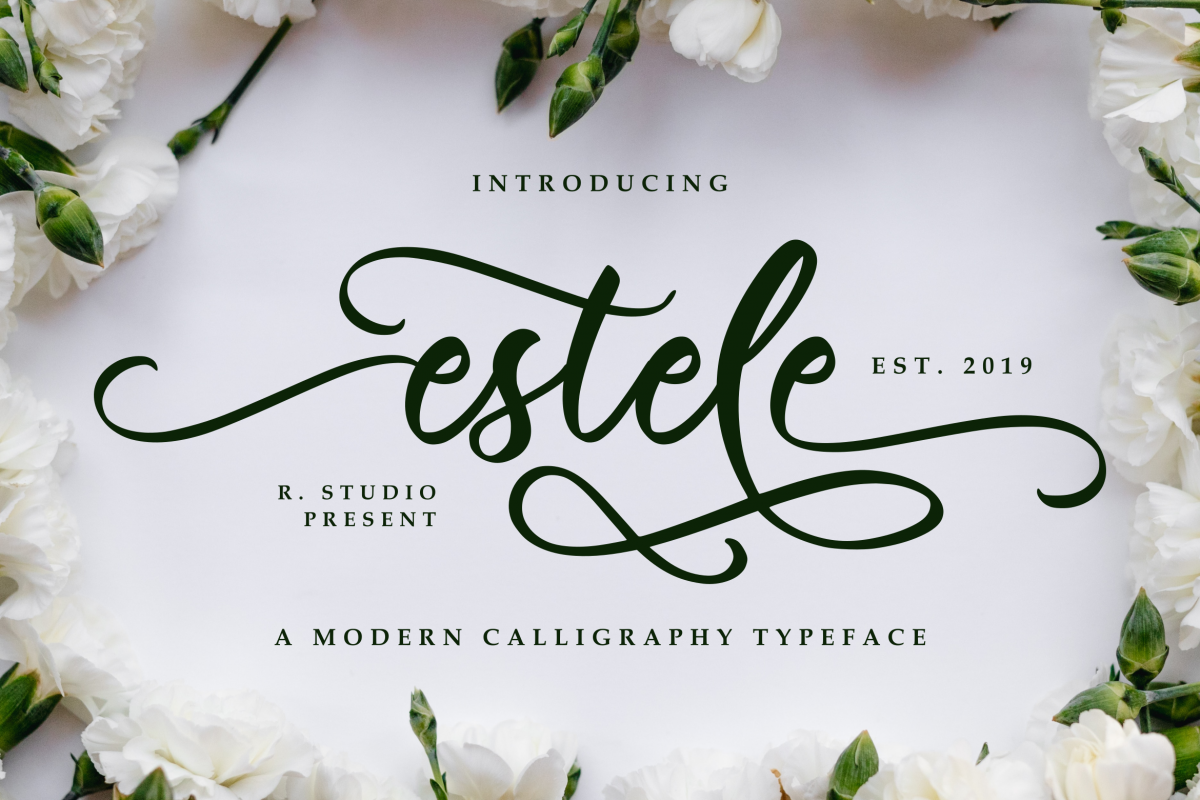
Estele
Estele is a lovely script font that features beautiful swashes. It will add a luxurious touch to any design project such as: t-shirts, posters, cards, Christmas and holiday invitations, wedding invites and stationery, logos, etc.What's included :
• Alternate glyphs
• PUA Encoded Characters